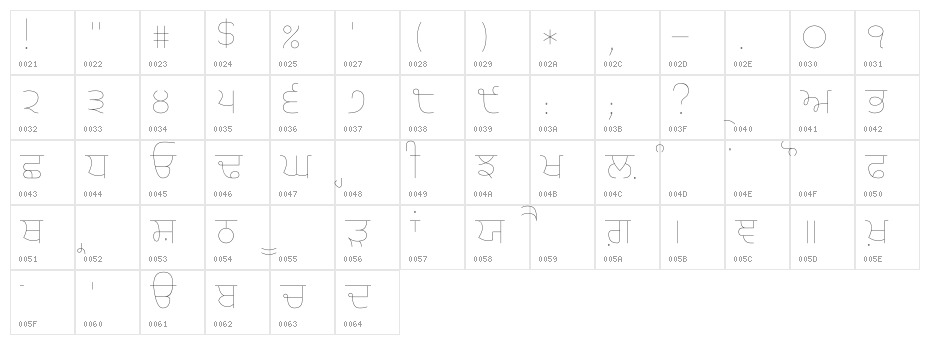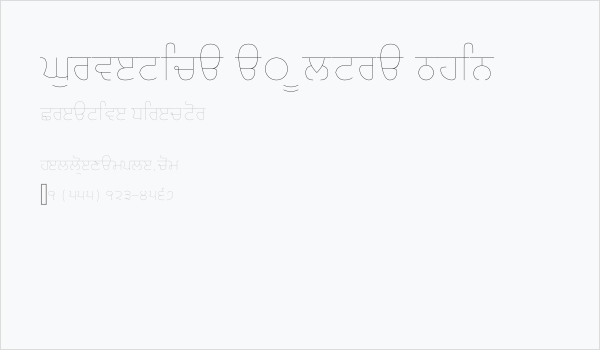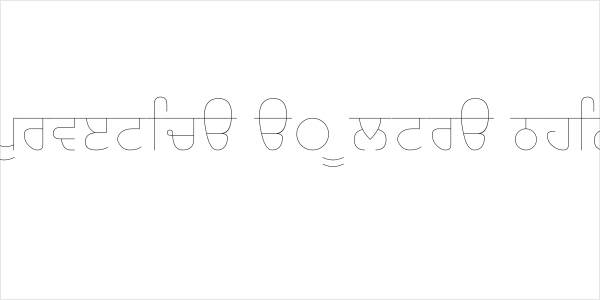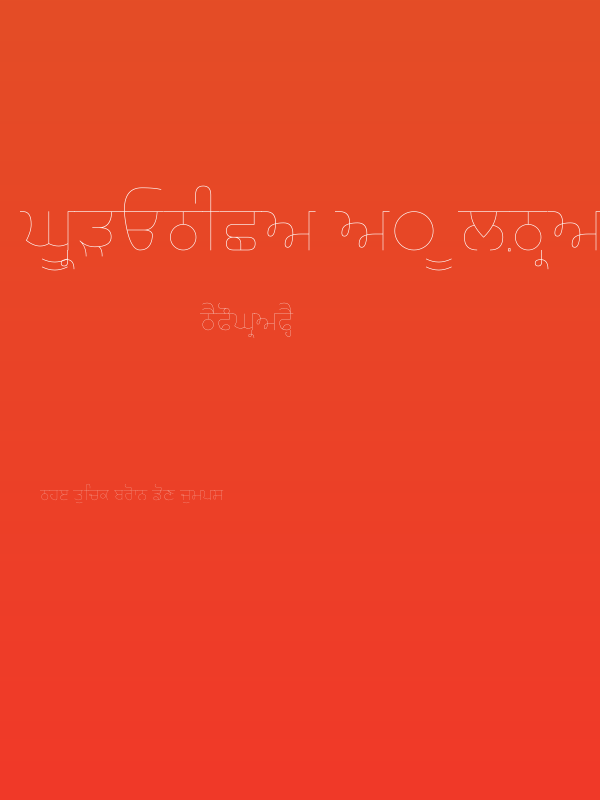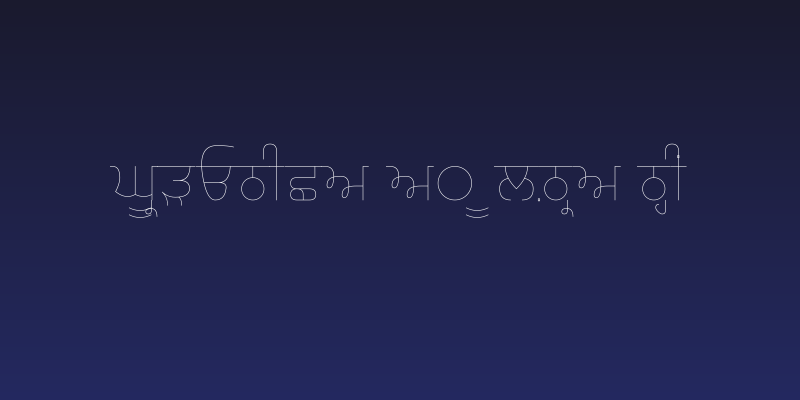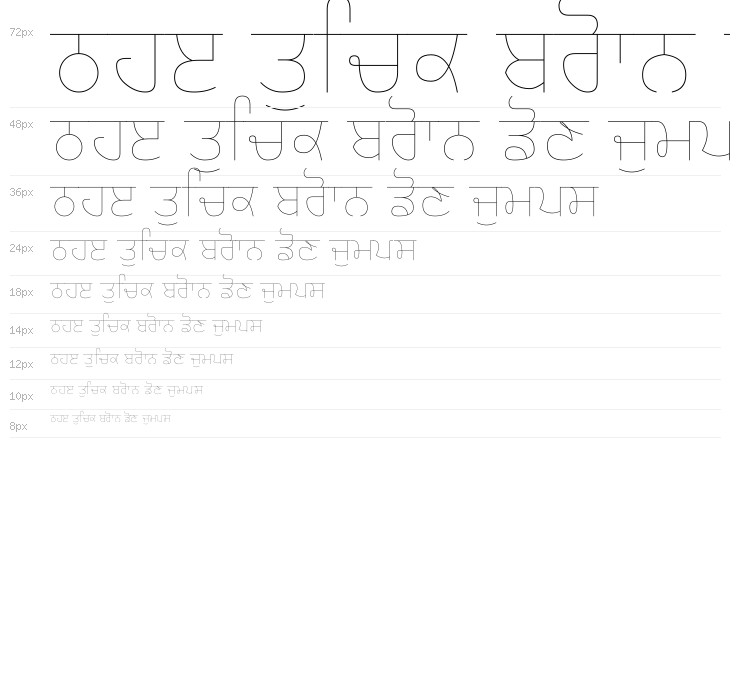
Gurvetica a0 Ultra Thin Font
Gurvetica a0 Ultra Thin Description
This font features an ultra-thin, modern design with a clean and minimalist aesthetic. The characters are crafted with a consistent line weight, giving it a sleek and elegant appearance. The spacing between characters is wide, enhancing readability while maintaining a sophisticated look. The font's geometric shapes and smooth curves contribute to its contemporary style, making it suitable for a variety of design applications. Its simplicity and clarity make it an excellent choice for projects that require a modern and professional touch.
Proposed ProjectsIdeal for branding, editorial design, web design, and minimalist posters.